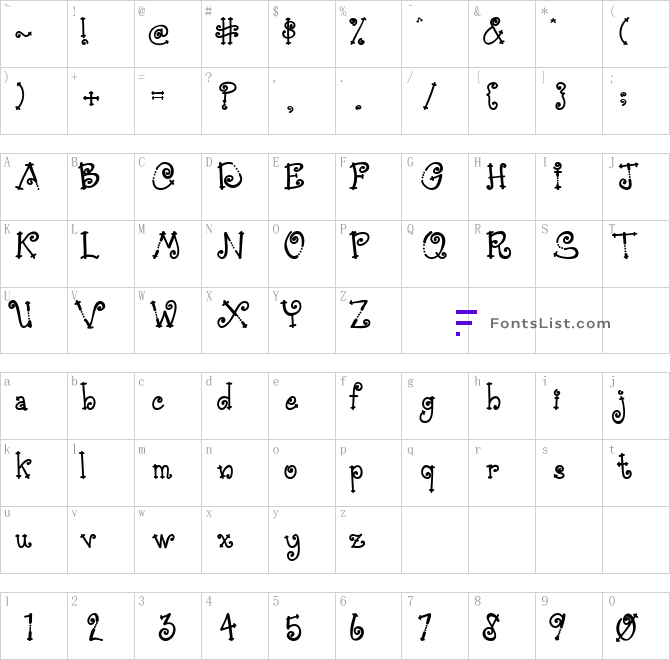
- Font Name:Austie Bost Simple Simon
Austie-Bost-Simple-Simon.ttf is a very beautiful artistic font, Austie-Bost-Simple-Simon.ttf is widely used in the design and printing of various books and pictures,Austie-Bost-Simple-Simon.ttf has a strong visual impact,Austie-Bost-Simple-Simon.ttf is a commonly used font in newspapers, magazines and books, and is used in posters, e-commerce Poster design, store design, logo design, font design and other fields.Austie-Bost-Simple-Simon.